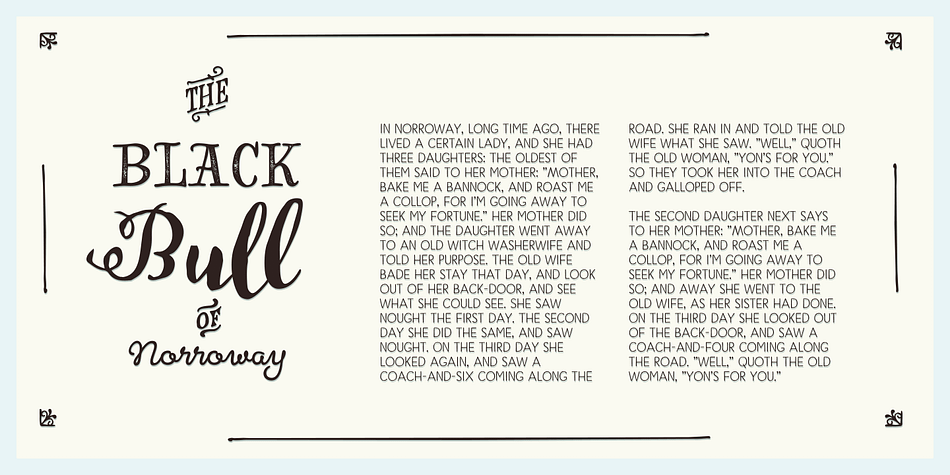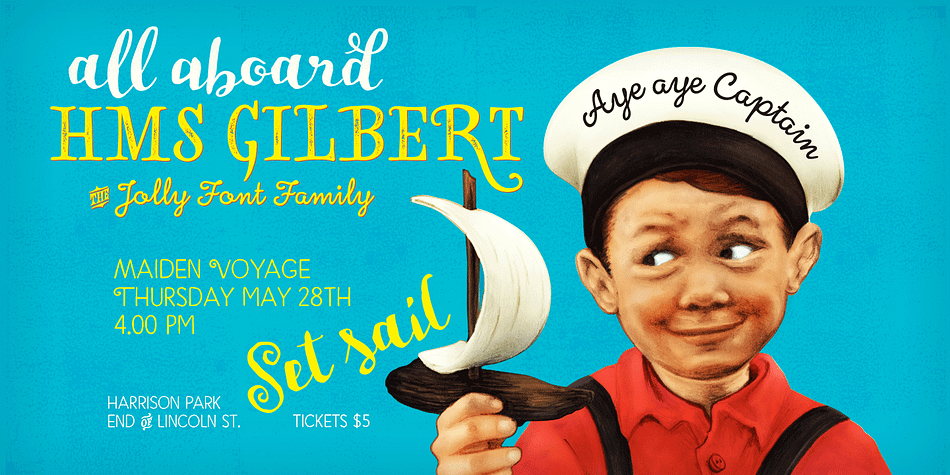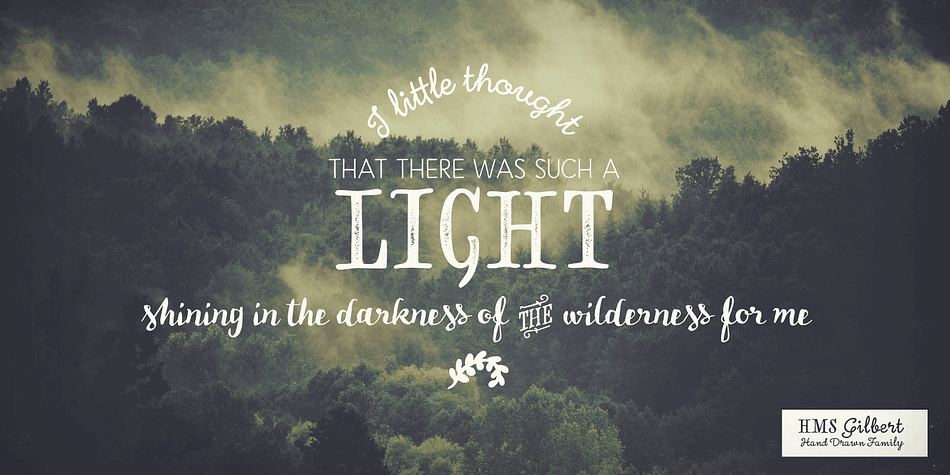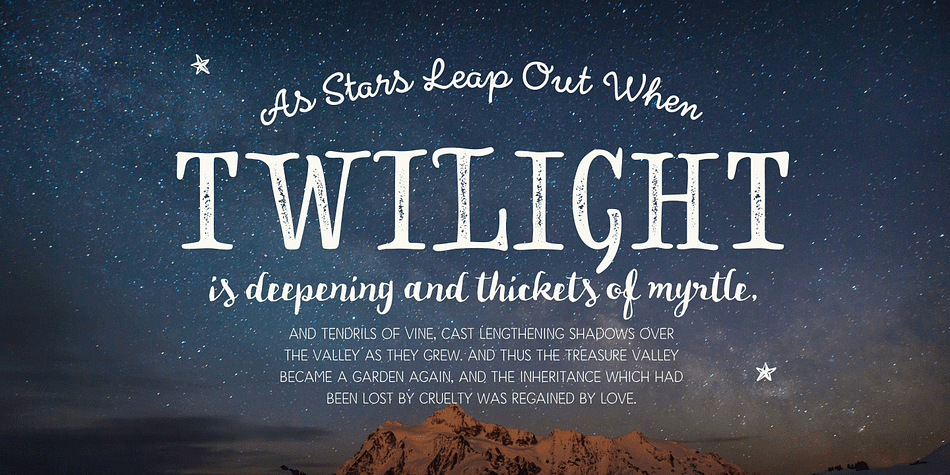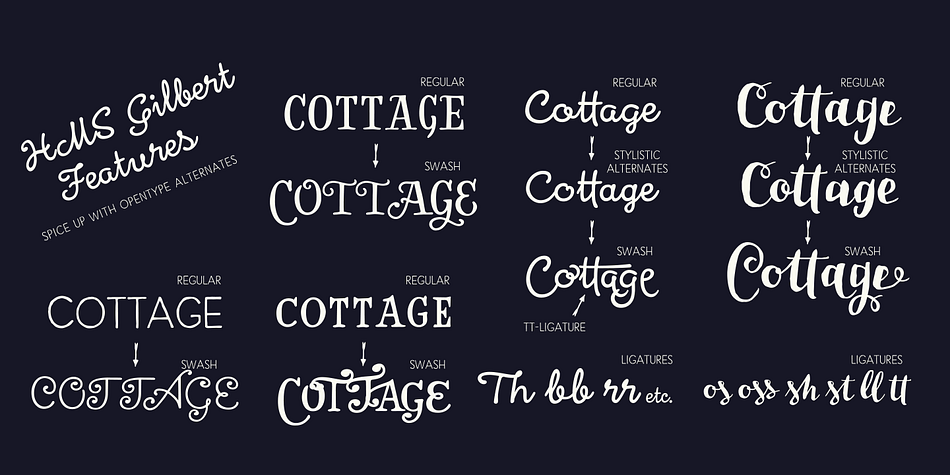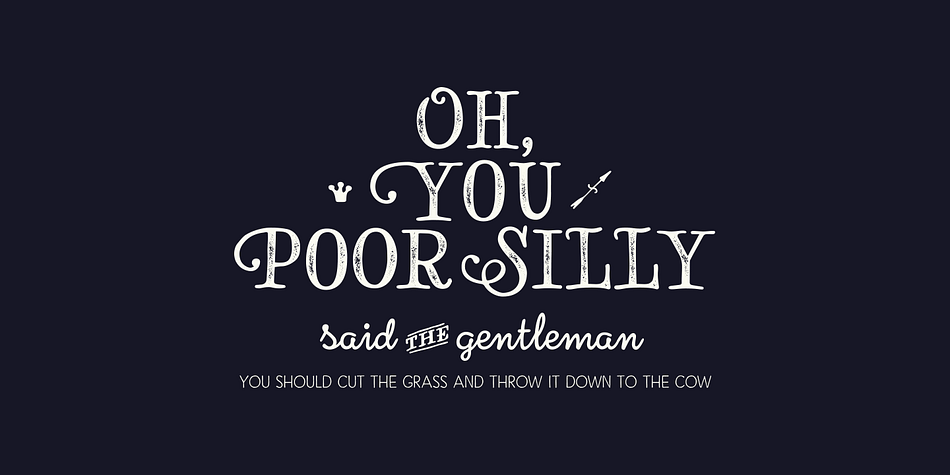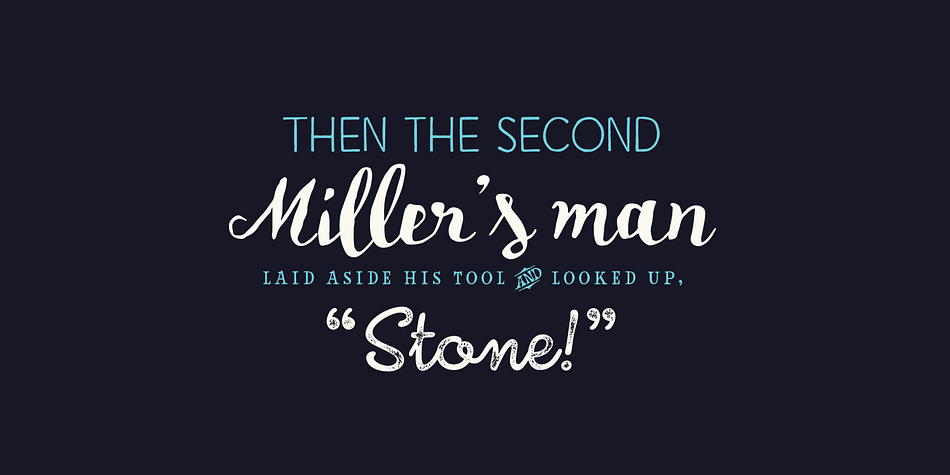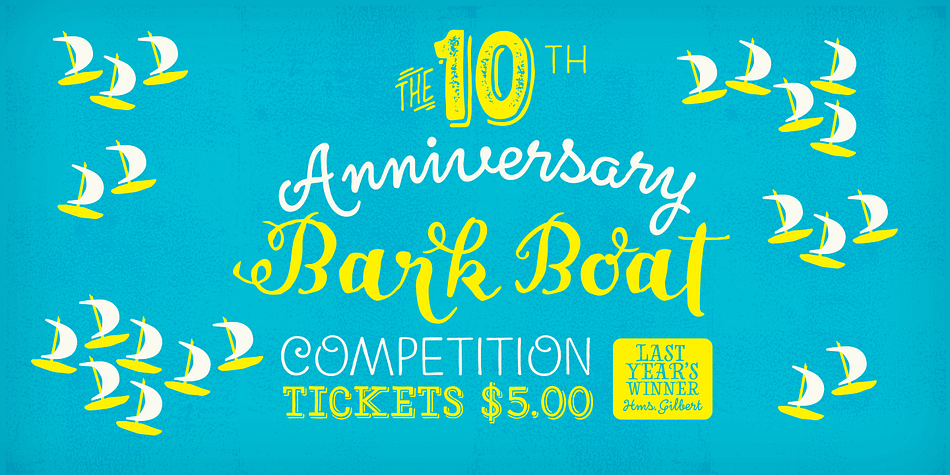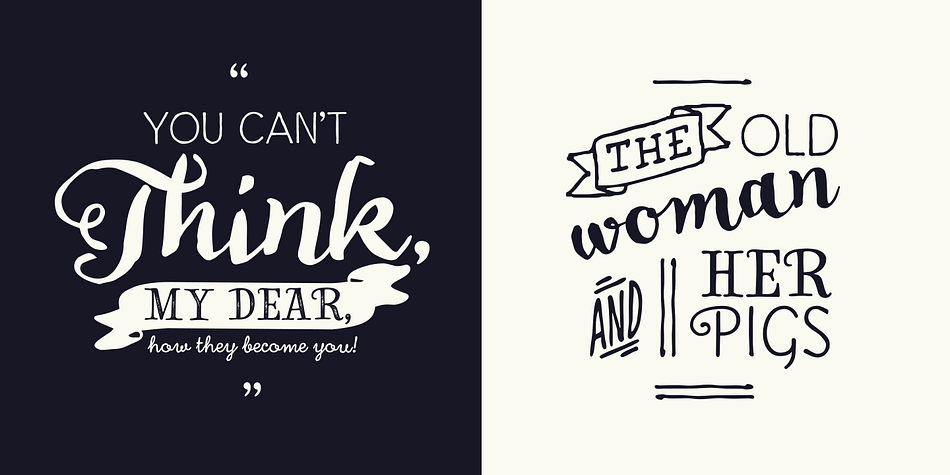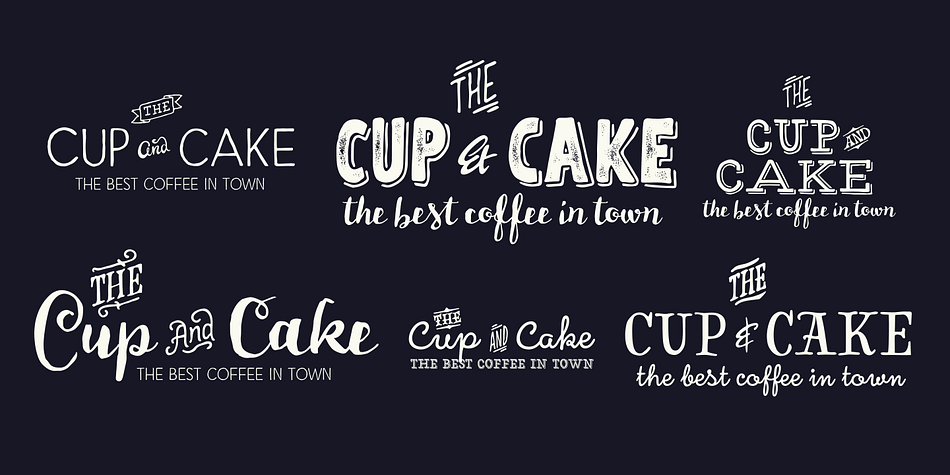
Designed by Emil Karl Bertell, HMS Gilbert is a multiple classification font family. This typeface has thirteen styles and was published by Fenotype.
HMS Gilbert is a hand drawn collection of fonts designed to play perfectly together. HMS Gilbert contains seven different fonts, five of which also have texturised versions of them. In addition to fonts there is also Catchwords and Ornaments -sets of nice extras that help you to complete your designs with a coherent look.
Most of the fonts are equipped with OpenType features such as Swash, Stylistic Alternates and Automatic Ligatures to help you to achieve more custom and “hand made” look.